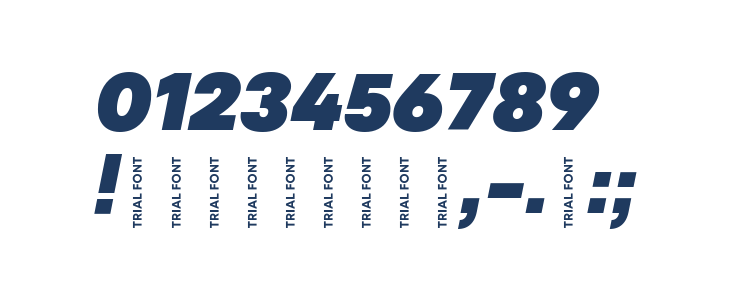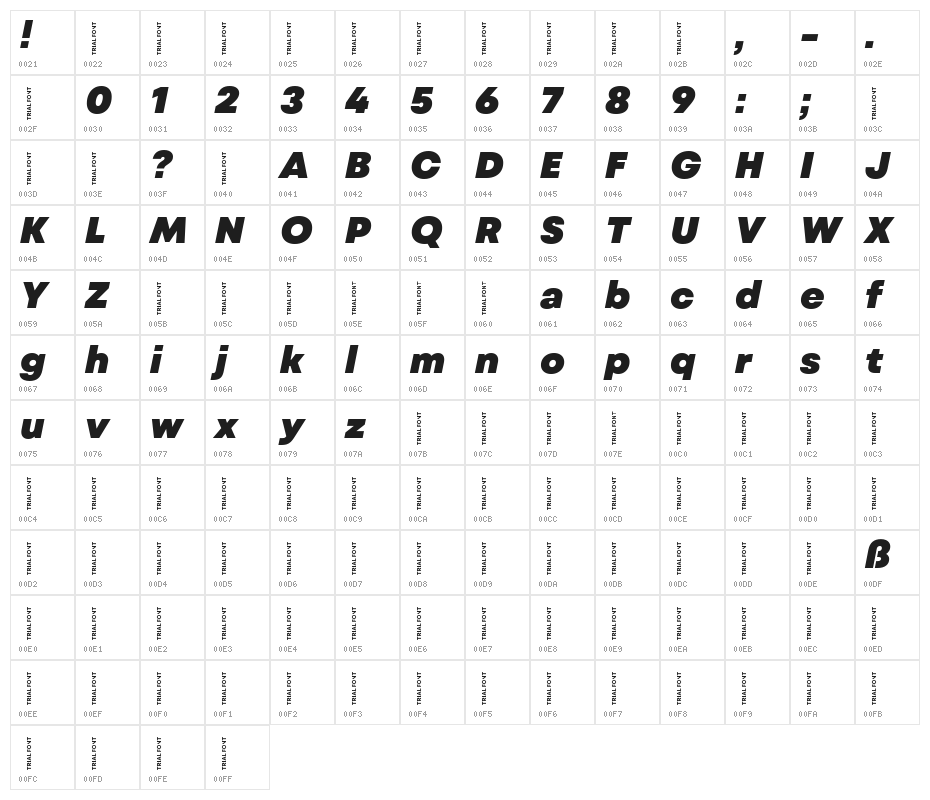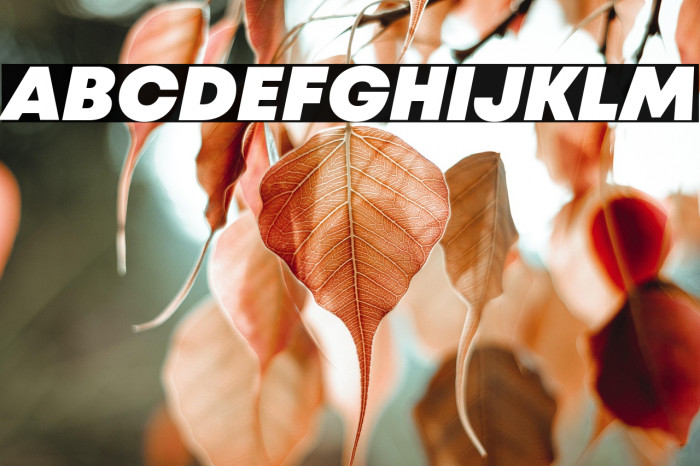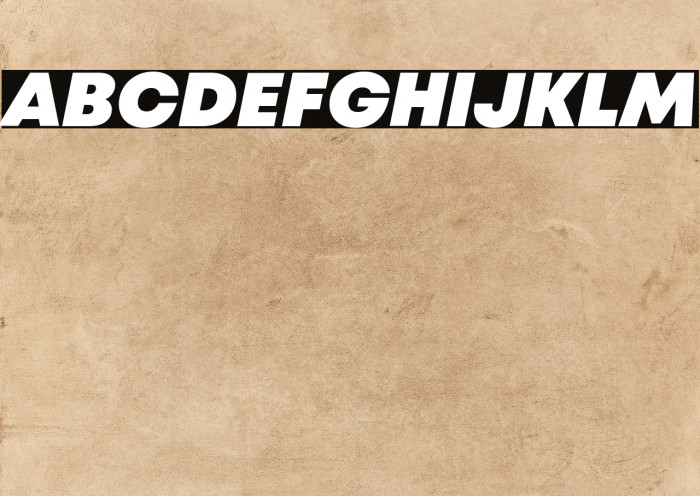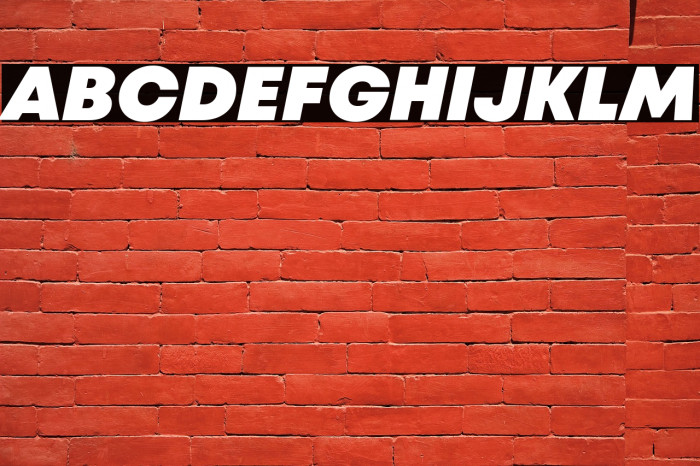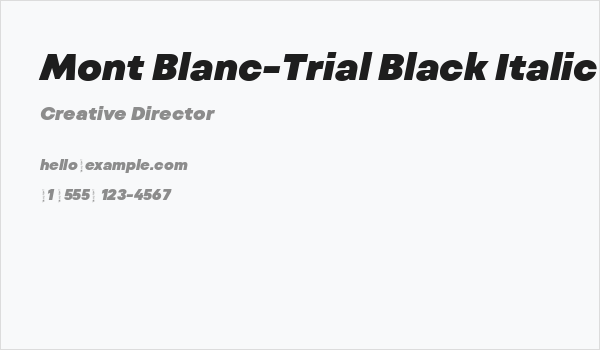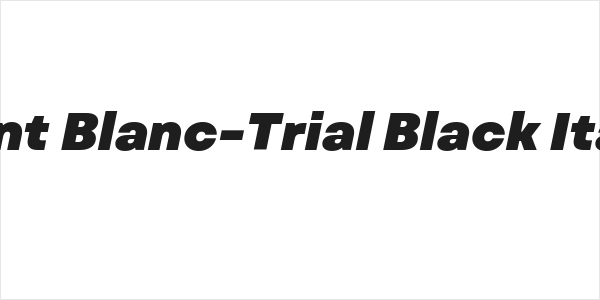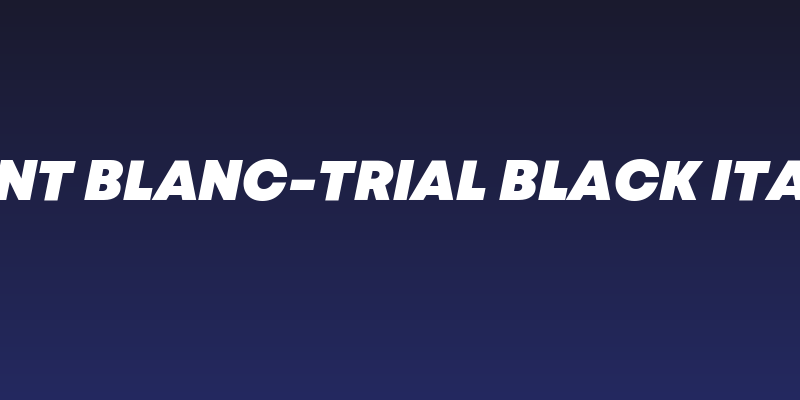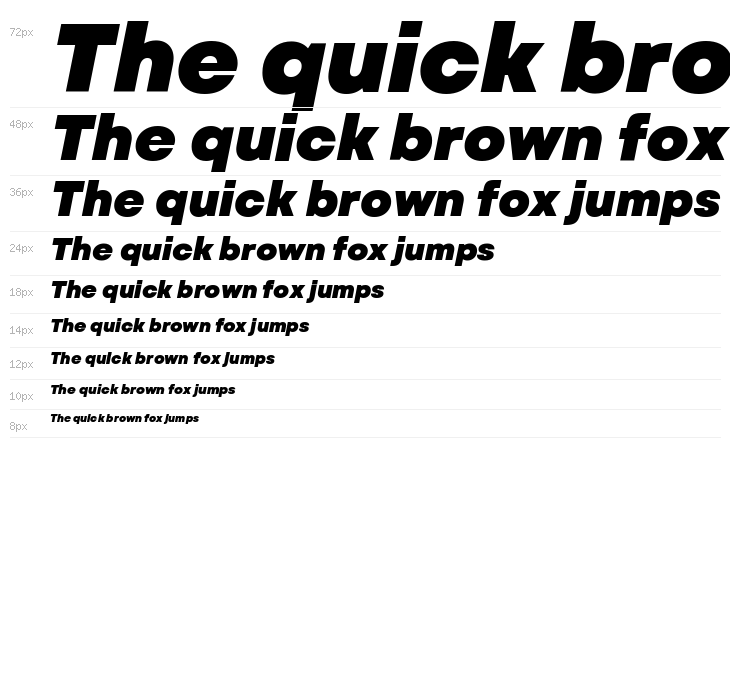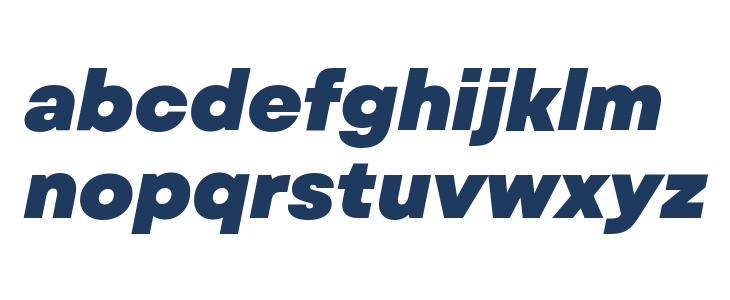
Mont Blanc-Trial Black Italic Font
Mont Blanc-Trial Black Italic Description
This font exhibits a bold and dynamic style with a strong italic slant, giving it a sense of motion and urgency. The characters are thick and robust, providing excellent visibility and impact. The uppercase and lowercase letters maintain a consistent weight, contributing to a cohesive appearance. The numbers are equally bold, ensuring they stand out in any context. Special characters are designed with the same boldness, making them suitable for attention-grabbing headlines or statements. The overall design is modern and assertive, perfect for projects that require a strong visual presence.